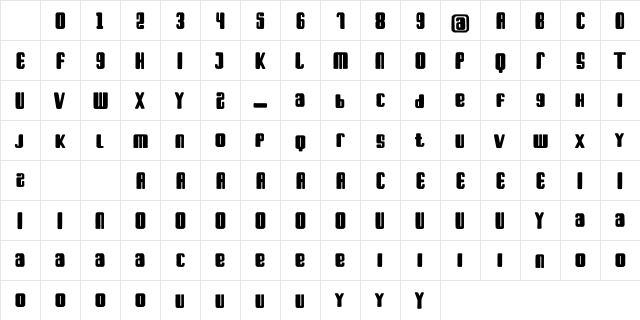
Complete Bark For Life Regular glyph index. Displaying only characters natively supported by Bark For Life Regular font.
Bark For Life is a composed and adaptable typeface that performs quietly and consistently across a wide range of design contexts.